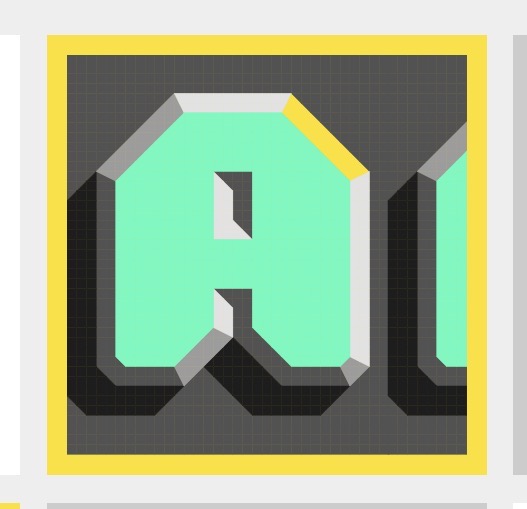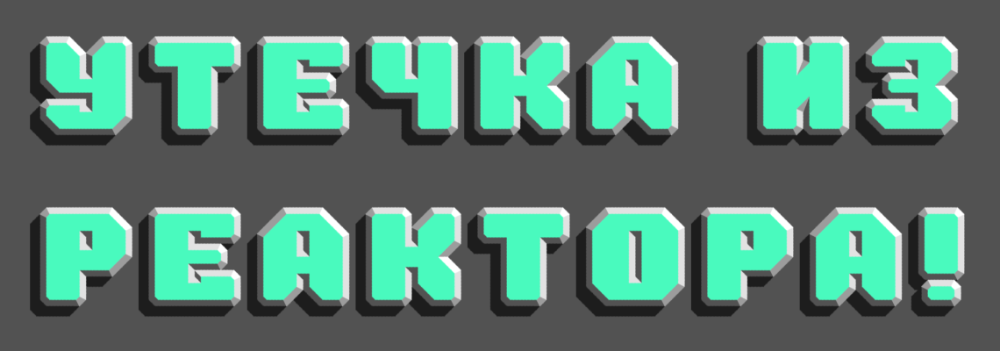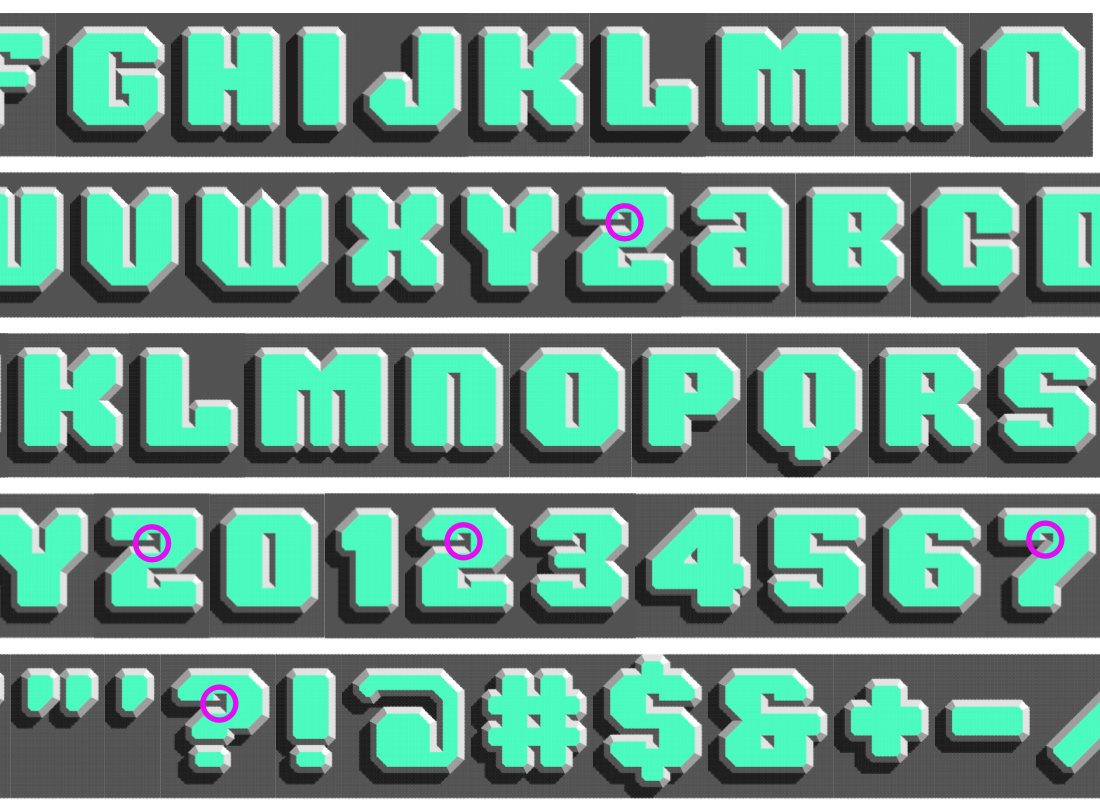
This is my third entry to HeavyComp. Until recently it was not certain I could finish it. I had to delete the (duplicate) upper case letters, as they have slowed down the Fontstructor considerably. Too many bricks, I guess.
This color font has 5 layers only. The color hues/shades of gray were specially selected for the best possible bevel and shadow effect. I hope you like it.
This is so cool. The chamfered corners make the glyphs even more spectacular.
This font is so cool. It reminds me of gemstones intricately cut to perfection.
The combination of bevelling and shadow makes these beautiful bold letters pop off the screen. The greyshades work really well together.
Looks like you've used colo(u)r limitations.
he wouldn't've any problem with one extra colour, the limit is eight, the font uses 6: he could've used one layer for white
either that or he didn't bother filling it in :/
@ elliqvl: Actually, the number of layers/colours is five. 1) North and East = light grey; 2) NW and SE = medium grey; 3) W, S, SW and the background = dark grey; 4) shadows = black; 5) front face = aquamarine. Shall I add a sixth layer of white for NE?
Update: A white-colour layer has been added for the North-East faces. Basic Cyrillic support.
oh i probably miscounted as the background colour is the same as the W/SW/S shading colour
@elmoyenique: Thank you. I had to remove the (identical) lowercase letters because the font was too big. I will expand the Latin and Cyrillic support as much as possible. However, the design is very limiting.
Earlier today, I noticed small defects in this work (magenta circles). Only a few glyphs were affected. See the corrected version in the Preview window.